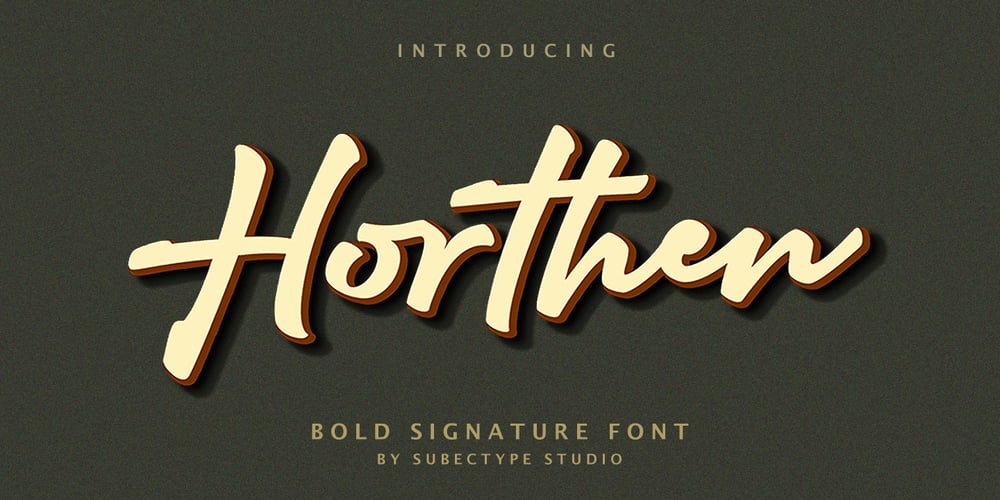
Horthen Font Family was designed by Rangga Subekti and published by Subectype. Horthen contains 1 styles and family package options. ‘Horthen’ is a Bold Signature Font script with a natural & stylish flow. This font is perfect for personal branding. It was made with the intention to be used for your personal branding. But it works well for many applications. Everything from personal branding, photography signature, advertising could benefit from this collection of this bold signature fonts. These typefaces work well for many different aesthetics. They work well with something like ‘cosmetics’ for example but would also work well with Liquor Labels, Signage, & any type of signature-styled logo.